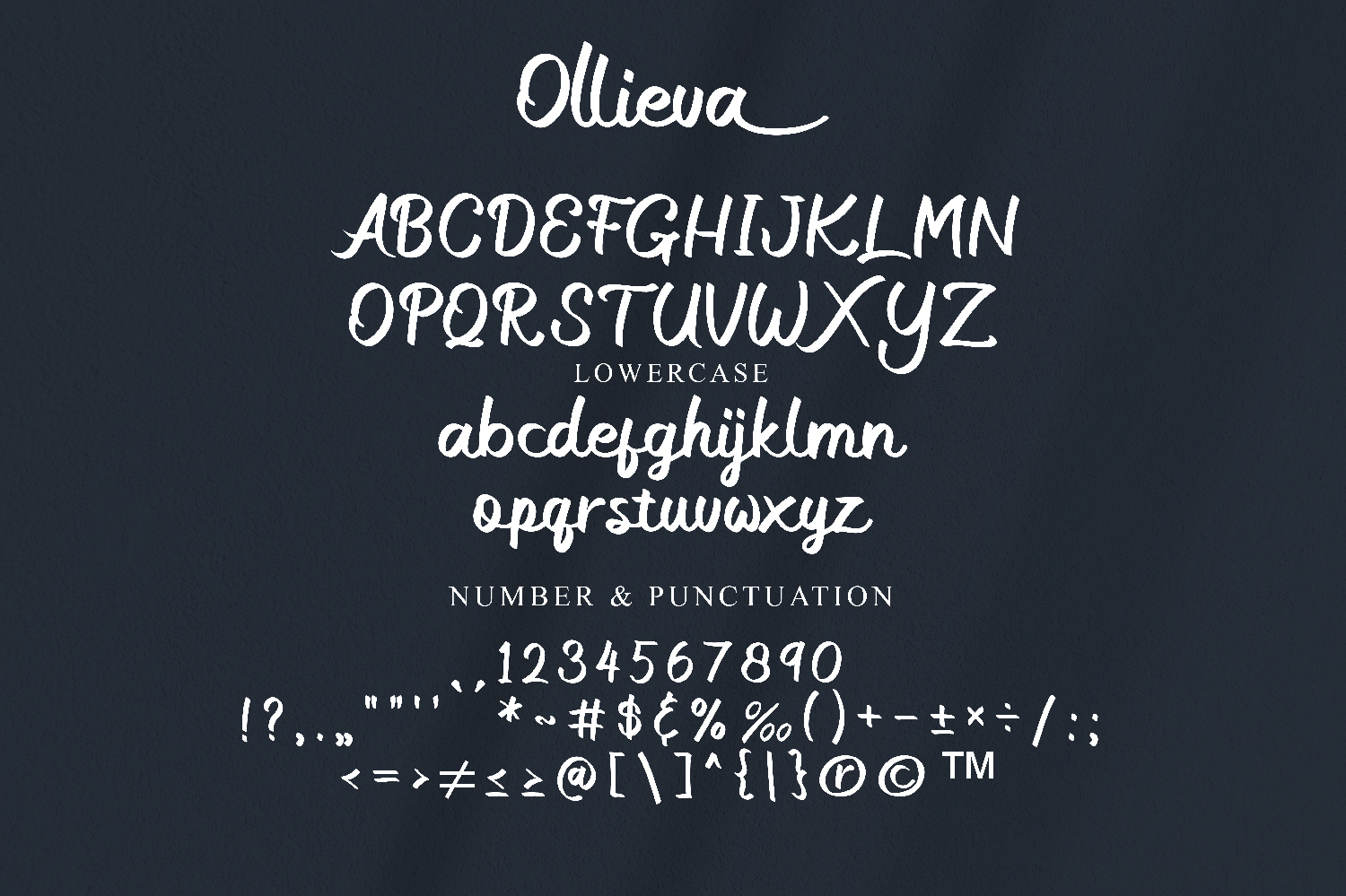
Infuse your designs with a personal touch using the Ollieva Handwritten Script Font. This charming typeface features graceful curves and fluid strokes that evoke the warmth of genuine handwriting. Ideal for invitations, greeting cards, and branding materials, Ollieva adds a unique flair that captivates and engages. Its versatile style effortlessly blends modern elegance with a touch of whimsy, making it a perfect choice for any creative project. Download Ollieva today and let your words flow with style and authenticity!